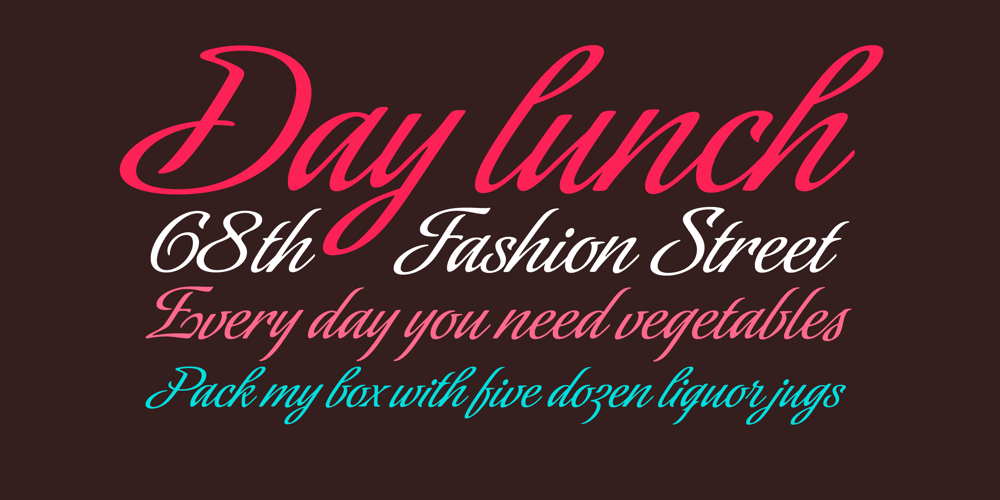
Sinfonieta
Sinfonieta font
Sinfonieta Font Family was designed by Alejandro Paul, Angel Koziupa and published by Sudtipos. Sinfonieta contains 1 styles and family package options. The unmistakable brush of Angel Koziupa does its unique work again, this time with the elegant strokes made for branding or packaging projects that entail the use of many design elements, and so require clear and simple artistic alphabet to represent the brand elegantly, without clashing with the overall design. Methodical and disciplined, Sinfonieta accentuates the collage just enough to convey class and comfort, art and elegance. Sinfonieta includes alternates that come in handy to help with the precision usually required for logotypes and wordmarks.